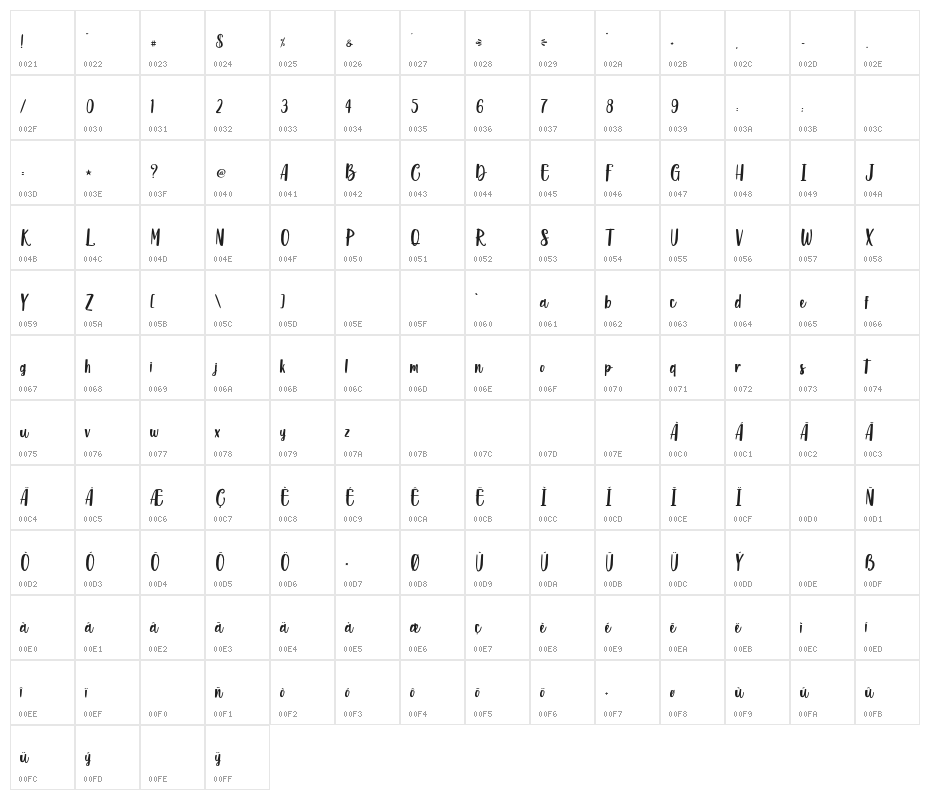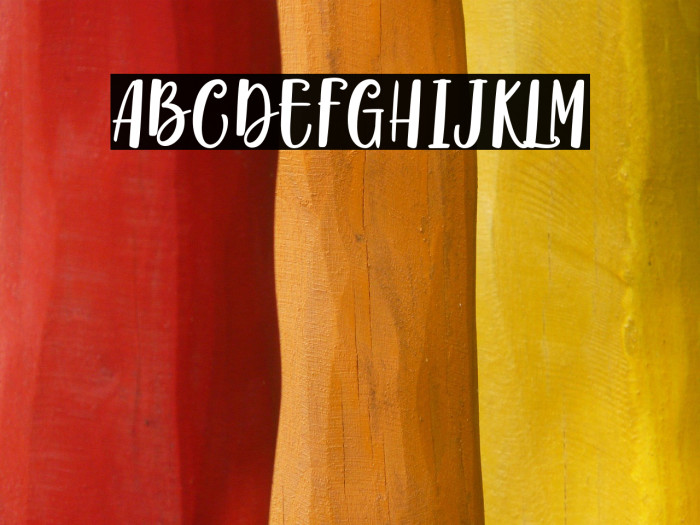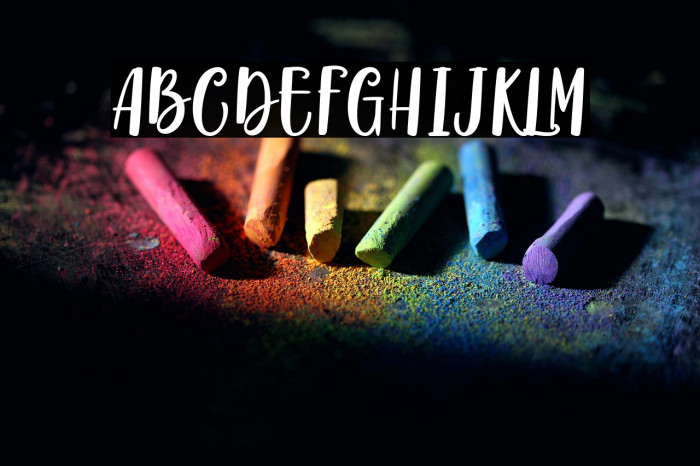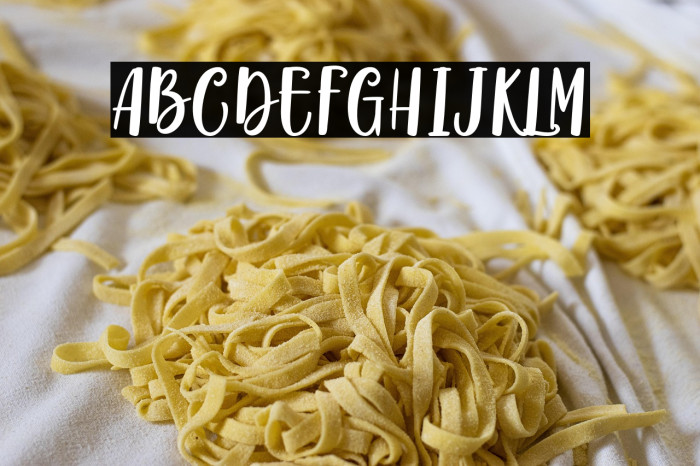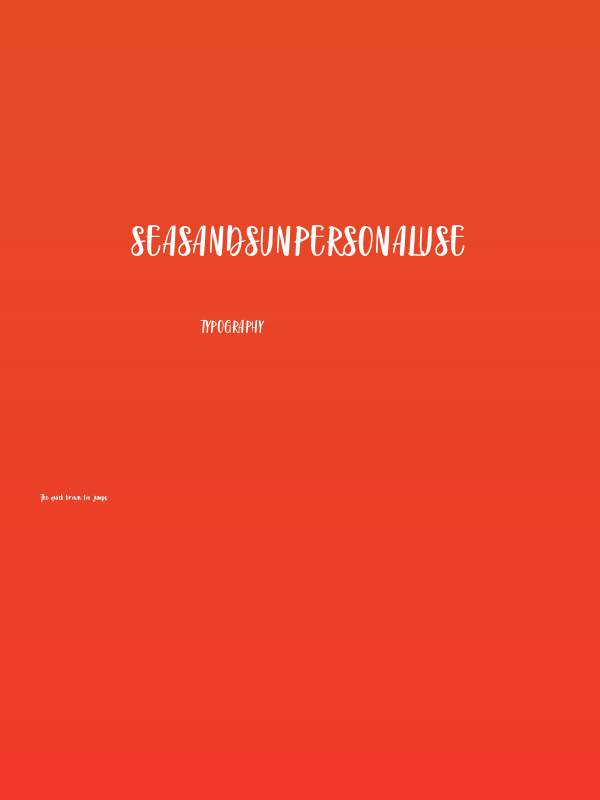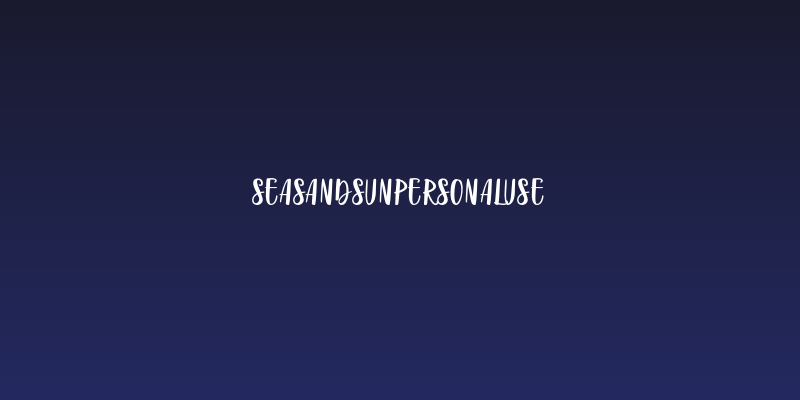
SeaSandSunPersonalUse Font
SeaSandSunPersonalUse Description
This font features a playful and casual handwritten style, characterized by its fluid and slightly irregular strokes. The uppercase letters are bold and dynamic, with a slight slant that adds movement and energy. The lowercase letters maintain a consistent style, with rounded forms and a friendly appearance. The numerals are clear and easy to read, matching the overall aesthetic of the font. Special characters are creatively designed, adding to the font's charm. This font exudes a sense of fun and spontaneity, making it suitable for projects that require a personal touch.
| Use Case | Logos, Headlines, Social Media Graphics |
| Proposed Projects | Ideal for greeting cards, invitations, social media graphics, and branding projects that require a personal and approachable feel. |